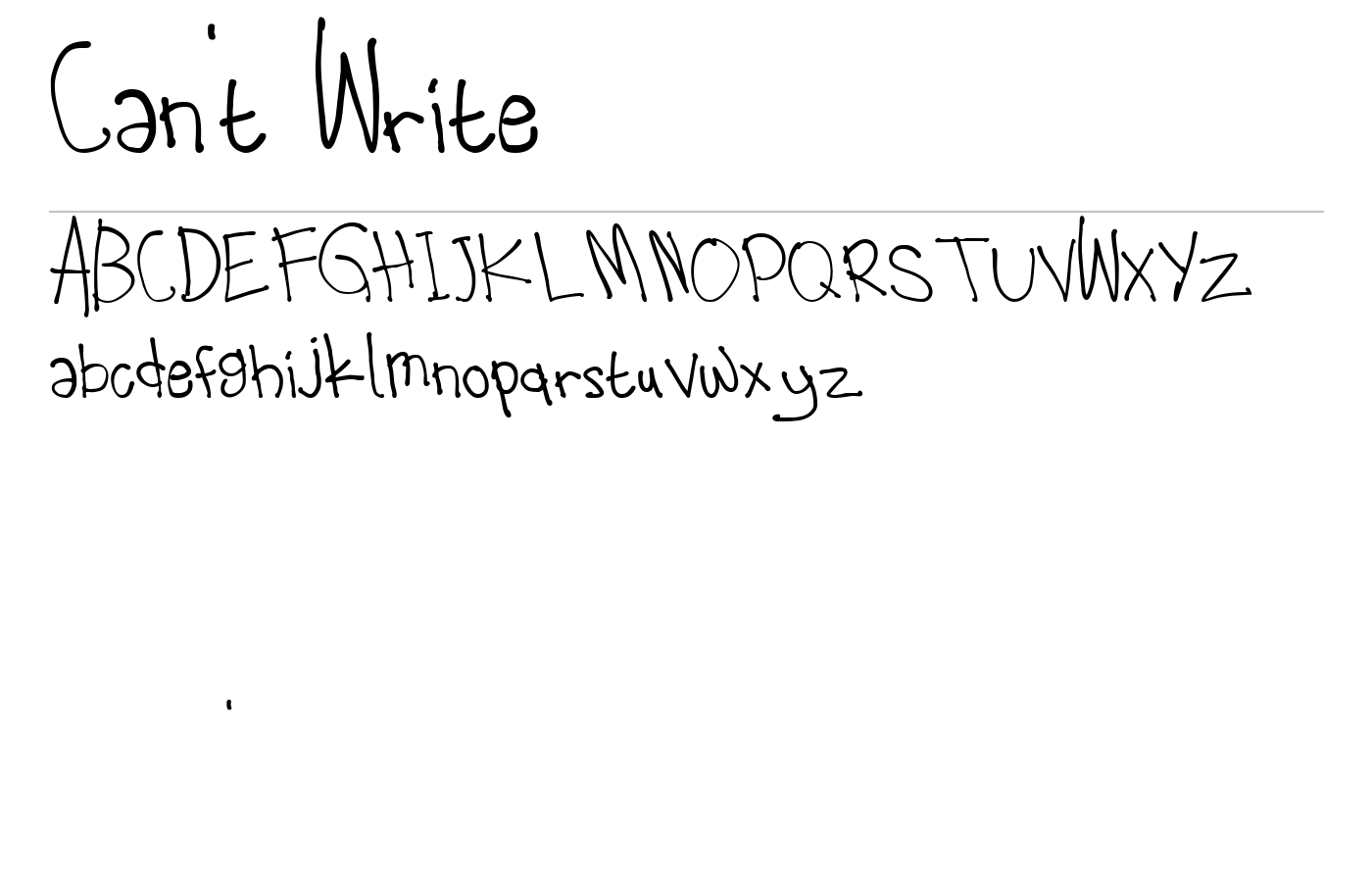
Can't Write Font is a playful, hand-drawn typeface that mimics casual handwriting with irregular strokes and a light weight, giving it an informal and quirky charm. Its tall, narrow letters with uneven lines make it perfect for fun, creative projects like children's invitations, casual branding, or artistic posters, where a relaxed and approachable tone is desired. This font works best in display settings rather than formal or lengthy texts, adding a touch of personality and whimsy.
Can't Write Font
About Can't Write Font
| Font family | Can't Write Font |
| Designer | Miftahul Habib |